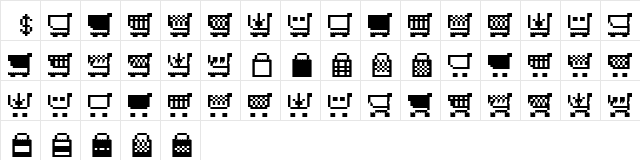
btd Cart-O-Grapher (bitmap) Regular
| Foundry | bigtoedesigns / Michael Brittain |
| Designer | Michael Brittain |
Design Context for btd Cart-O-Grapher (bitmap) Typeface
btd Cart-O-Grapher (bitmap) celebrates the constraints of early digital type, turning pixel geometry into a distinctive and immediately recognisable style.
A natural choice for retro game titles, chiptune music branding, 8-bit UI, and digital nostalgia projects.
Pro Tip: Pair btd Cart-O-Grapher (bitmap) with flat colour palettes and simple geometric UI elements to reinforce its digital aesthetic.